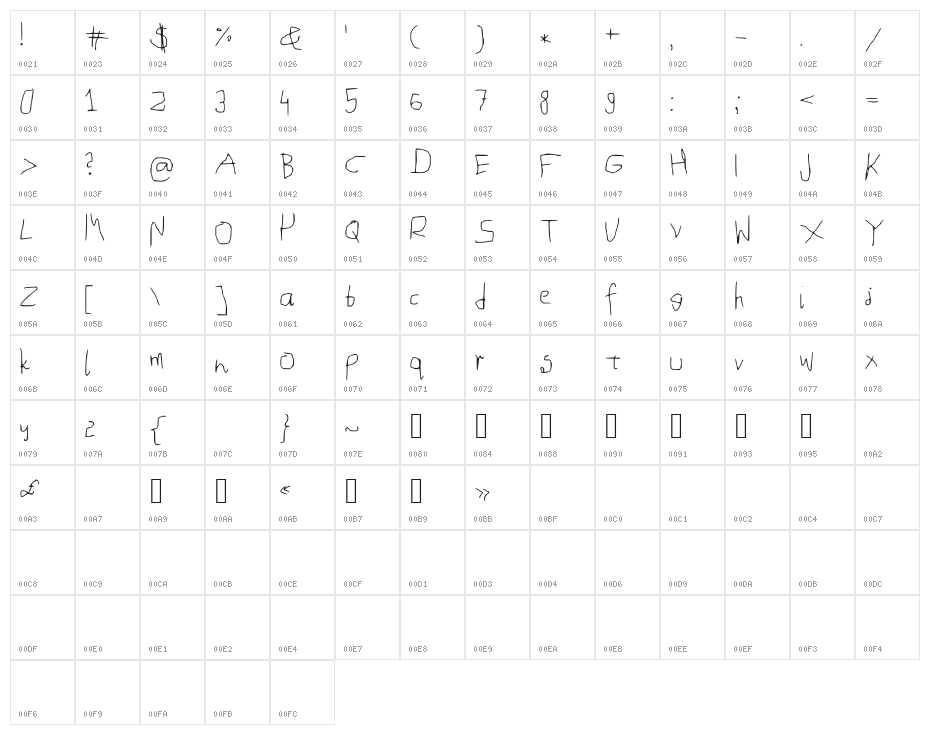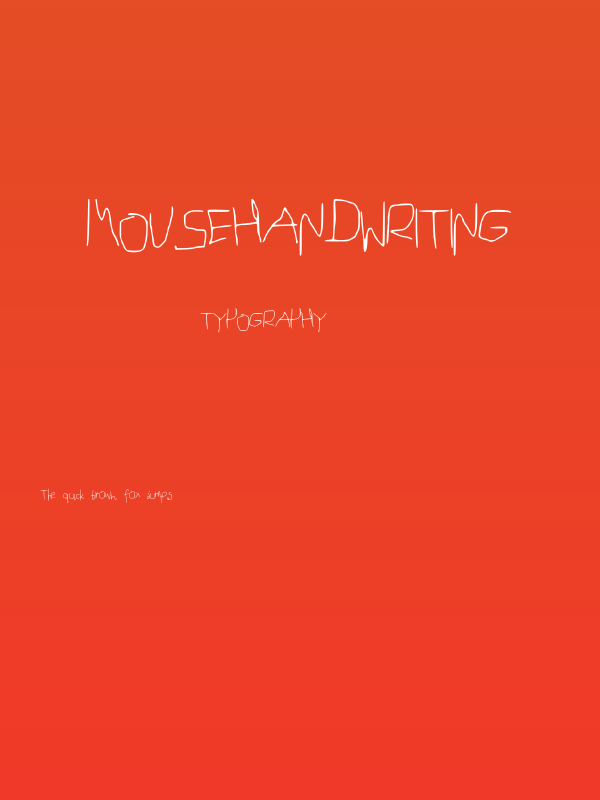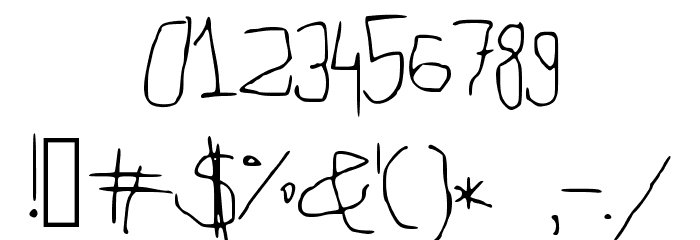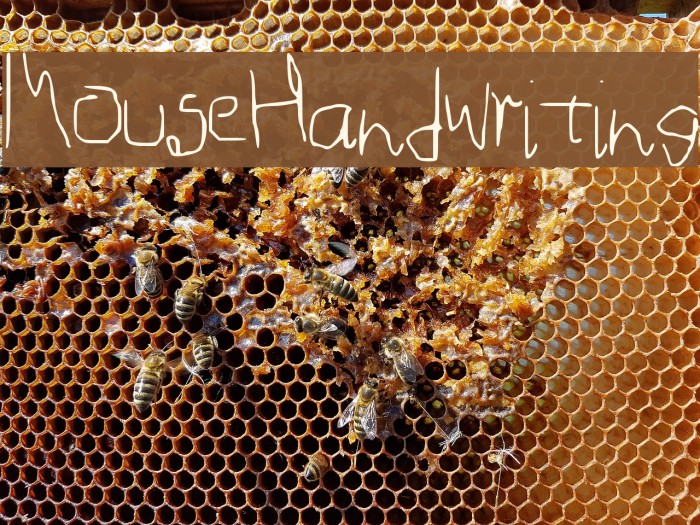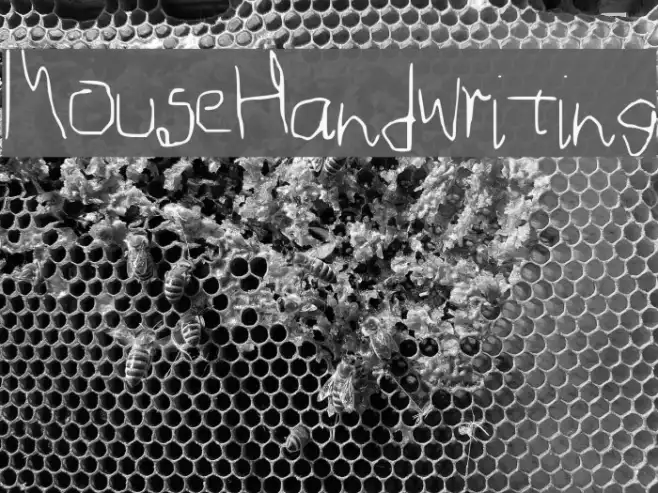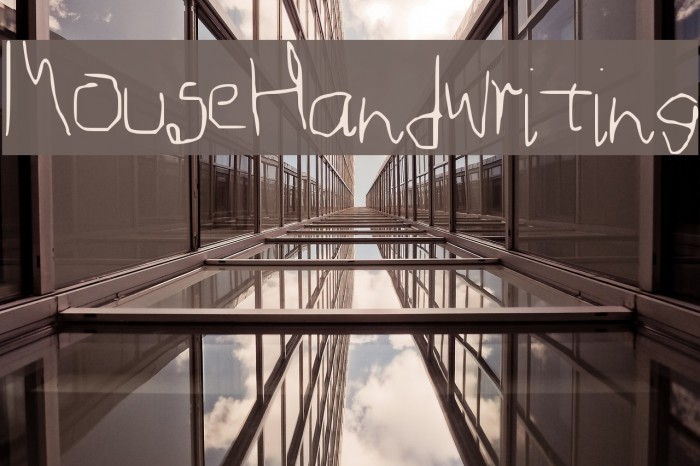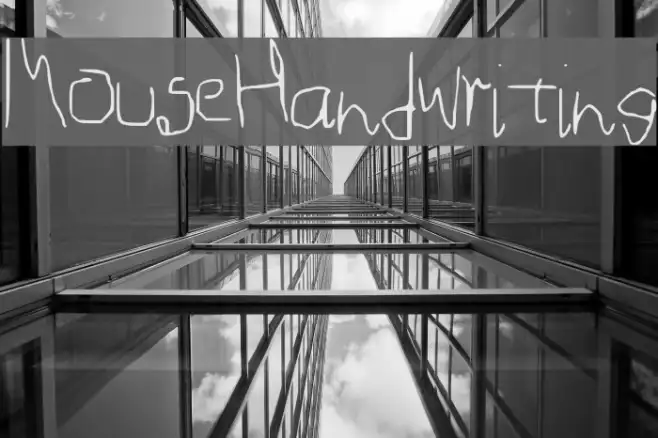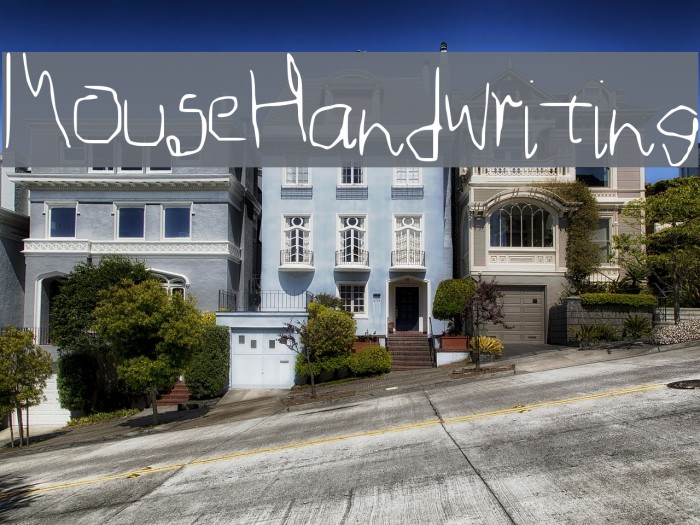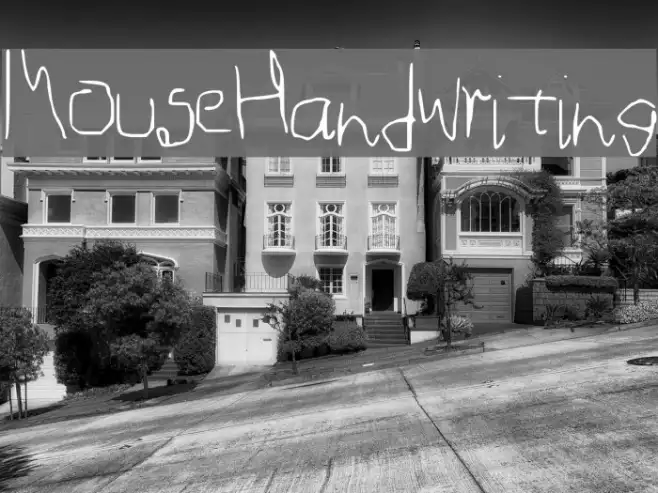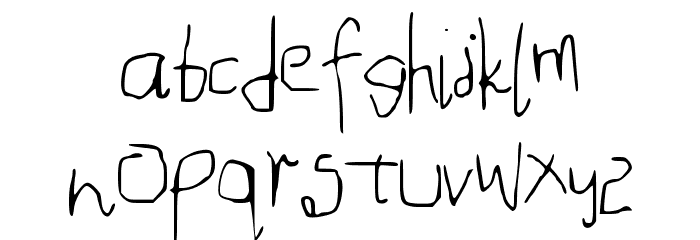
MouseHandwriting Font
MouseHandwriting Description
This font exhibits a playful, handwritten style that mimics the natural, uneven strokes of writing with a mouse. The characters are irregular and slightly wobbly, giving a casual and informal appearance. The uppercase letters are tall and narrow, while the lowercase letters maintain a consistent height, adding to the quirky charm. Numbers and special characters follow the same playful design, with varying line thickness and spontaneous curves. This font is ideal for projects that require a personal touch or a sense of spontaneity.
| Proposed Projects | Ideal for casual invitations, personal notes, children's book illustrations, or any project needing a whimsical, informal touch. |